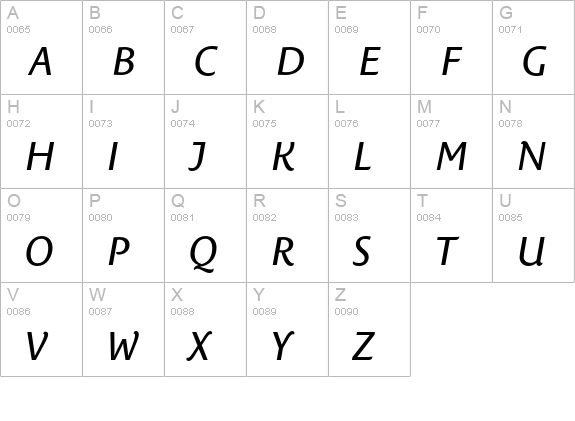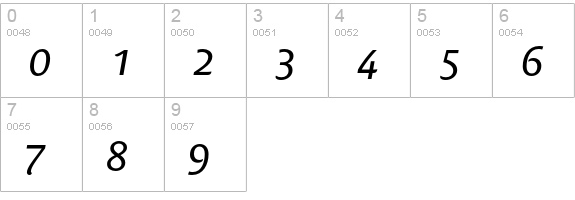
Costa Ptf Italic is a distinctive, italic variant in the Costa typeface family \xE2\x80\x94 well suited to design and typography projects.
Costa Ptf Italic font is a versatile and elegant typeface that exudes sophistication and style. Its sleek and modern design makes it perfect for a wide range of design projects, from branding to editorial design. The italic style adds a touch of flair and personality to any text, making it stand out and grab the reader's attention. Best of all, Costa Ptf Italic font is available for free download at FontsMarket.com. This means you can easily access this high-quality font without any cost, making it a great choice for designers on a budget or anyone looking to add a touch of class to their projects. Don't miss out on this fantastic opportunity to elevate your designs with the beautiful Costa Ptf Italic font - download it for free today!